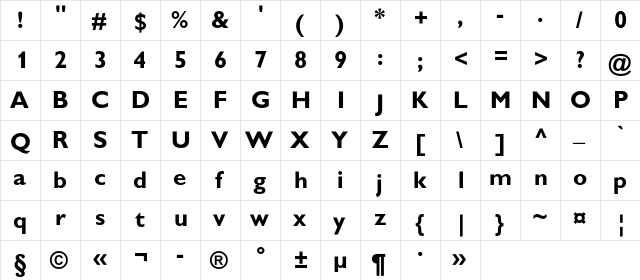
GillSansC Bold
Design Context for GillSansC Typeface
GillSansC is a composed and adaptable typeface that performs quietly and consistently across a wide range of design contexts. Its bold stroke weight gives it real presence on the page.